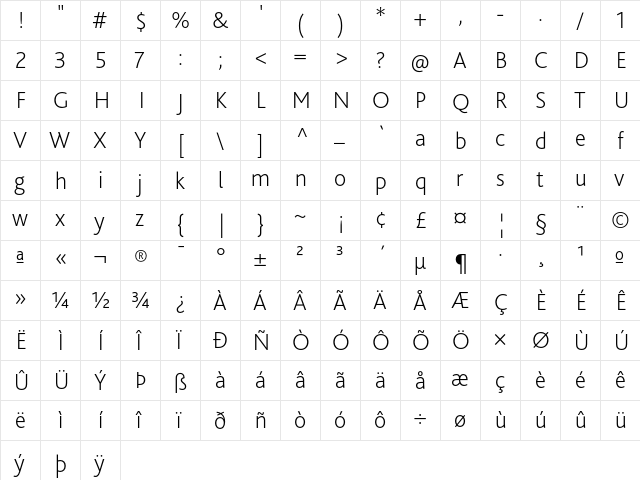
Bliss Pro ExtraLight
Design Context for Bliss Pro Typeface
Bliss Pro is a composed and adaptable typeface that performs quietly and consistently across a wide range of design contexts. Its slender proportions lend an understated elegance to any composition.
Pro Tip: Use Bliss Pro in both headline and body roles to test its range before committing to a single application.